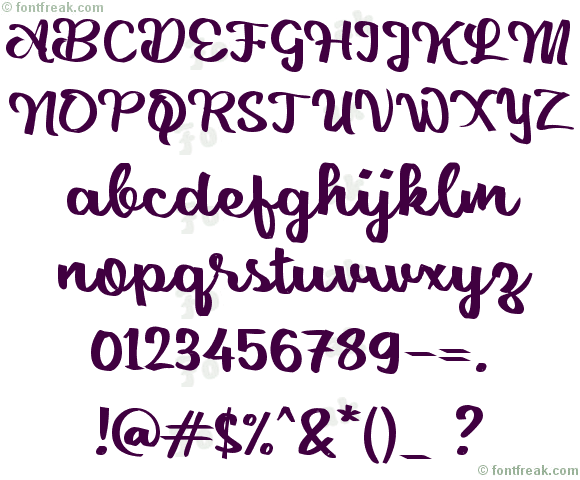
Desane
About Desane
Desane, crafted by Wahyu Eka Prasetya, is a captivating display font that merges elegance with modern flair. This font is characterized by its unique script style, making it a perfect choice for those seeking to add a personal touch to their designs. The strokes exhibit a balanced weight, with smooth curves and sharp points that create an engaging visual appeal. The contrast between thick and thin lines enhances its readability while adding a hint of sophistication. The spacing is thoughtfully designed, ensuring that each letter flows seamlessly into the next, making Desane not only beautiful but also functional.
This font lends itself well to a variety of creative applications. It is particularly suited for wedding invitations, where its artistic style can evoke romance and elegance. Additionally, Desane shines in branding projects, especially for small businesses looking to establish a memorable identity. Its charm also makes it an excellent choice for restaurant menus, where it can help convey a welcoming atmosphere. Furthermore, content creators can utilize Desane in social media graphics and promotional materials to capture attention and convey a sense of creativity.
Targeting graphic designers, small business owners, and content creators, Desane offers a versatile solution for those looking to elevate their visual presentations. The free license allows users to explore its potential without constraints, making it an accessible choice for a wide audience.
What sets the Desane font apart is its ability to blend artistic expression with practicality. Its unique character and thoughtful design make it a standout choice for anyone looking to make a lasting impression. Don't miss out on the opportunity to enhance your projects with the Desane font free download, adding a touch of elegance to your creative endeavors.